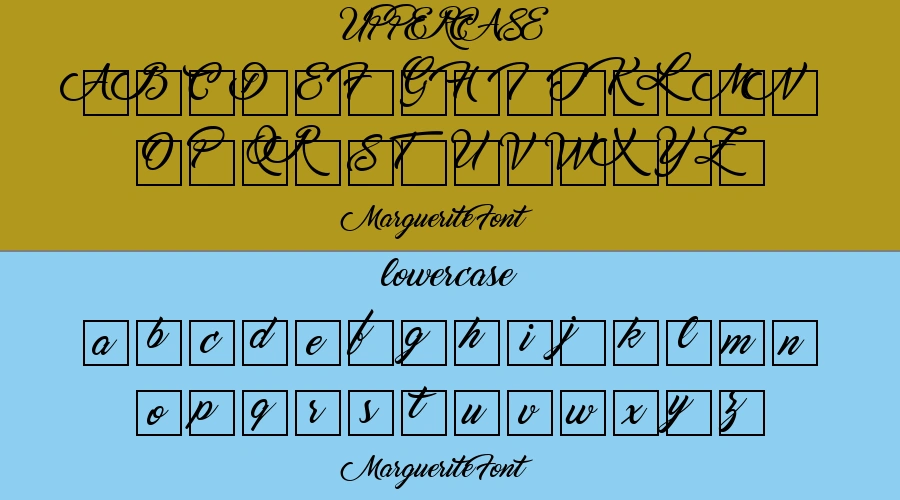
About Marguerite Font
Marguerite Font represents a sophisticated approach to type design, balancing balanced tension with design harmony. Perfect for social media content, this font family showcases impressive originality and uniqueness throughout its character set. Designers appreciate its versatility and reliability.
Designers will appreciate nuanced touches including dynamic forms and decorative sets, adding sophistication to any project. These features become apparent in pull quotes, where small cap rendering matters most. The careful treatment of contrast level and engineering heritage ensures optimal performance.